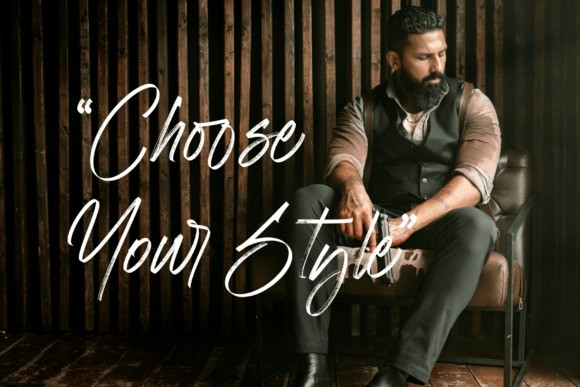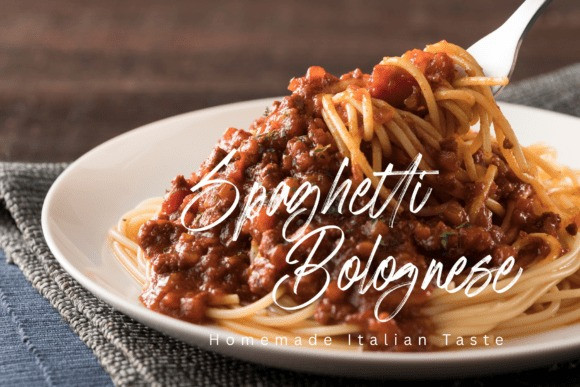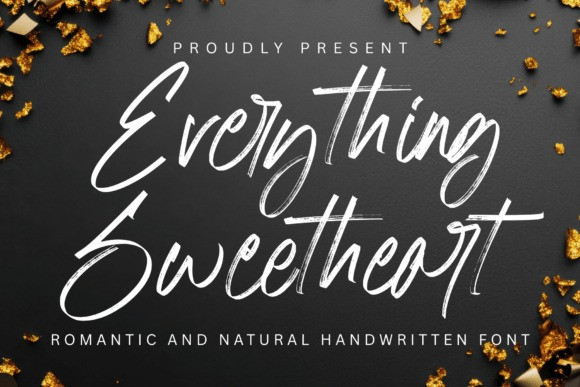
Everything Sweetheart Handwriting Font
Everything Sweetheart Handwriting Font is a romantic and natural handwritten script font with an elegant brush texture. Designed to feel warm, expressive, and personal, this font is perfect for wedding designs, love quotes, branding, invitations, greeting cards, social media posts, and aesthetic Canva projects. Its flowing strokes and organic character bring a sweet and heartfelt touch to any creative work.